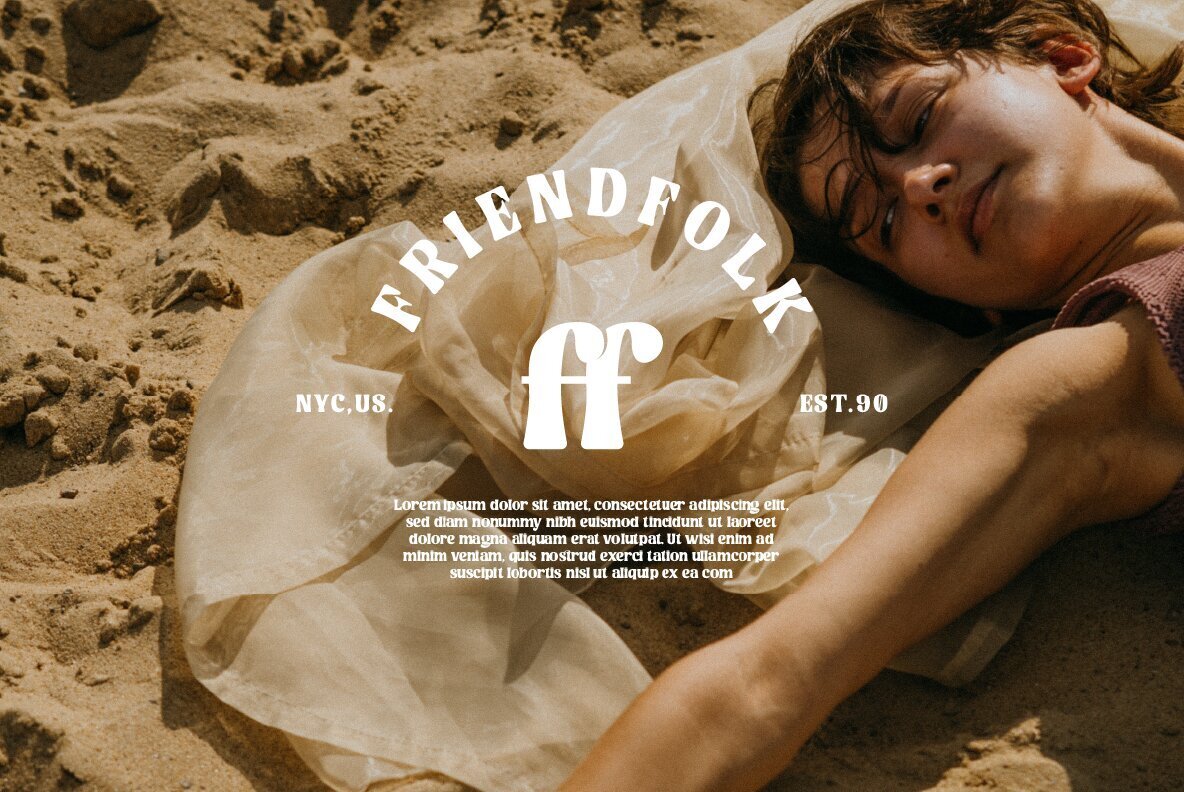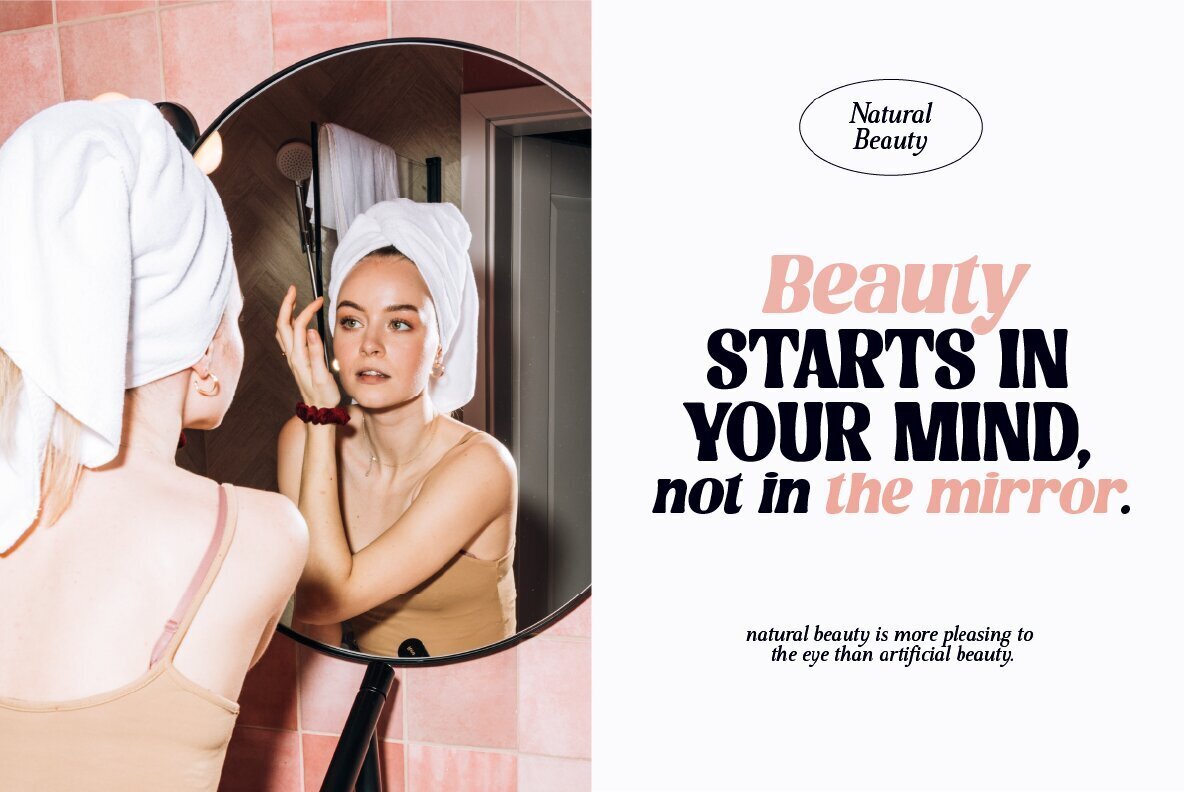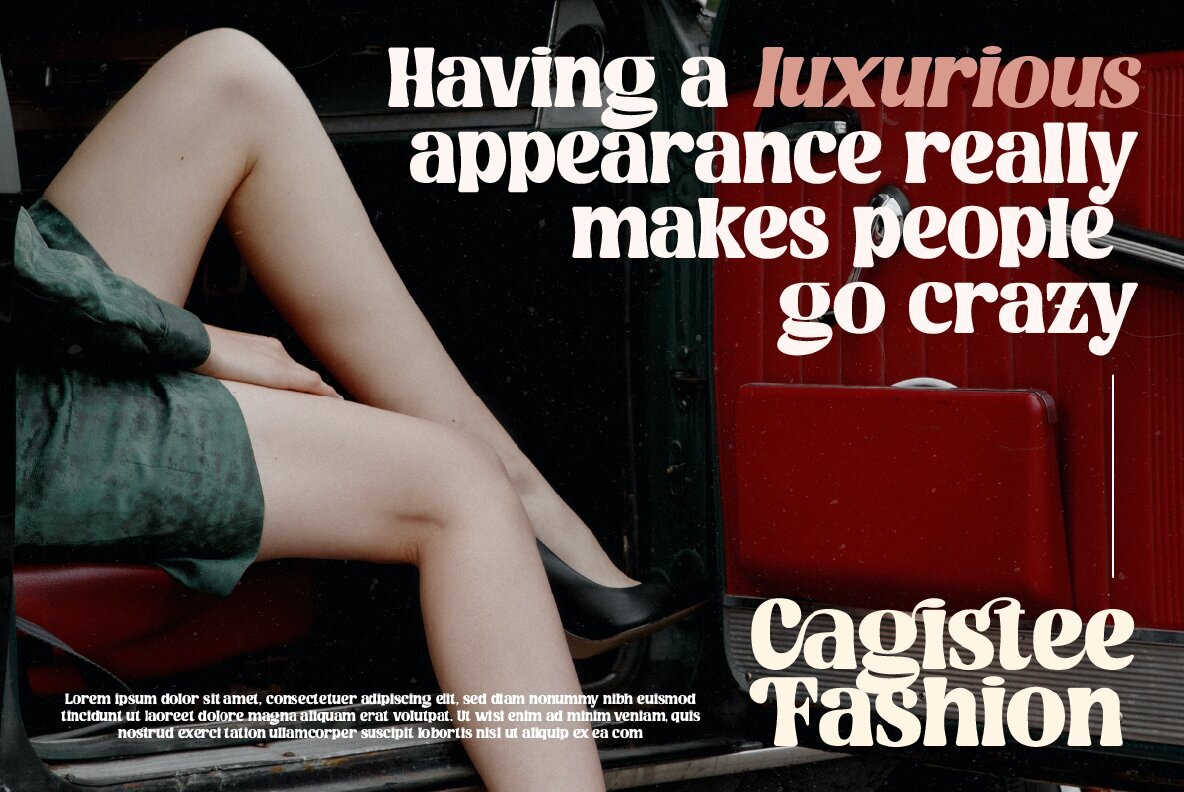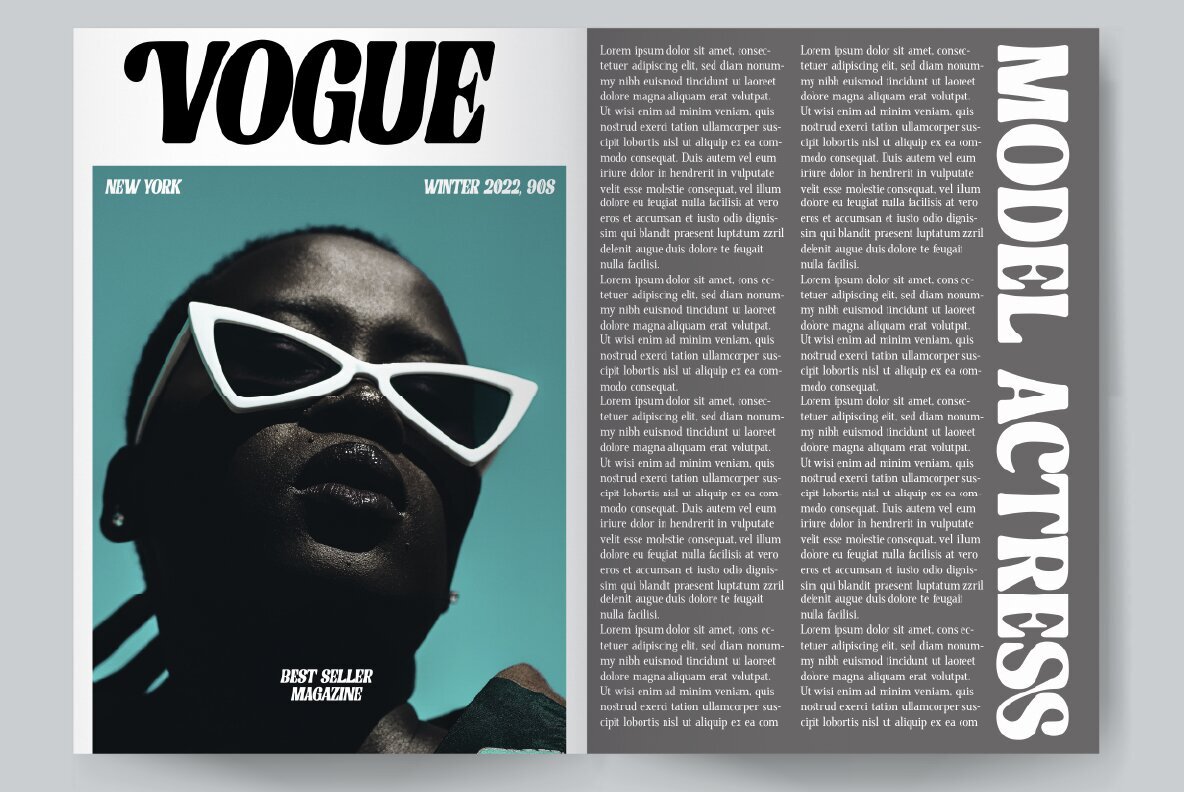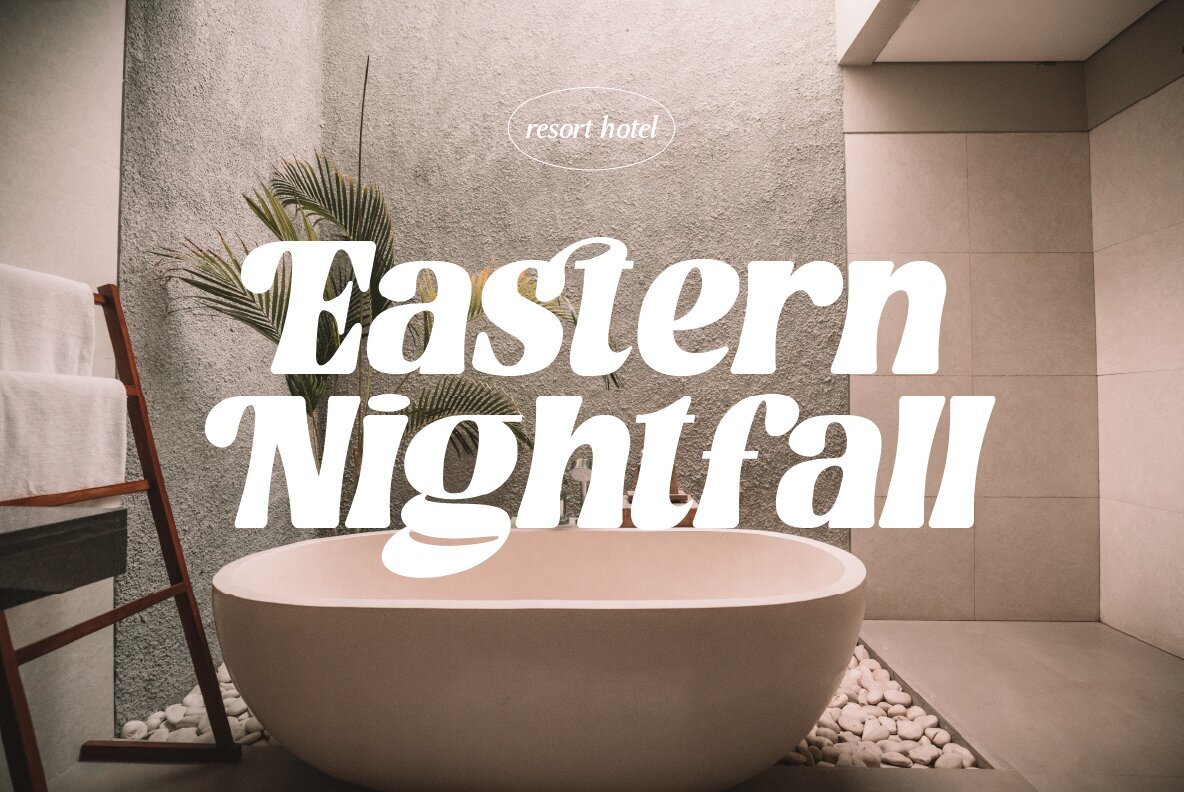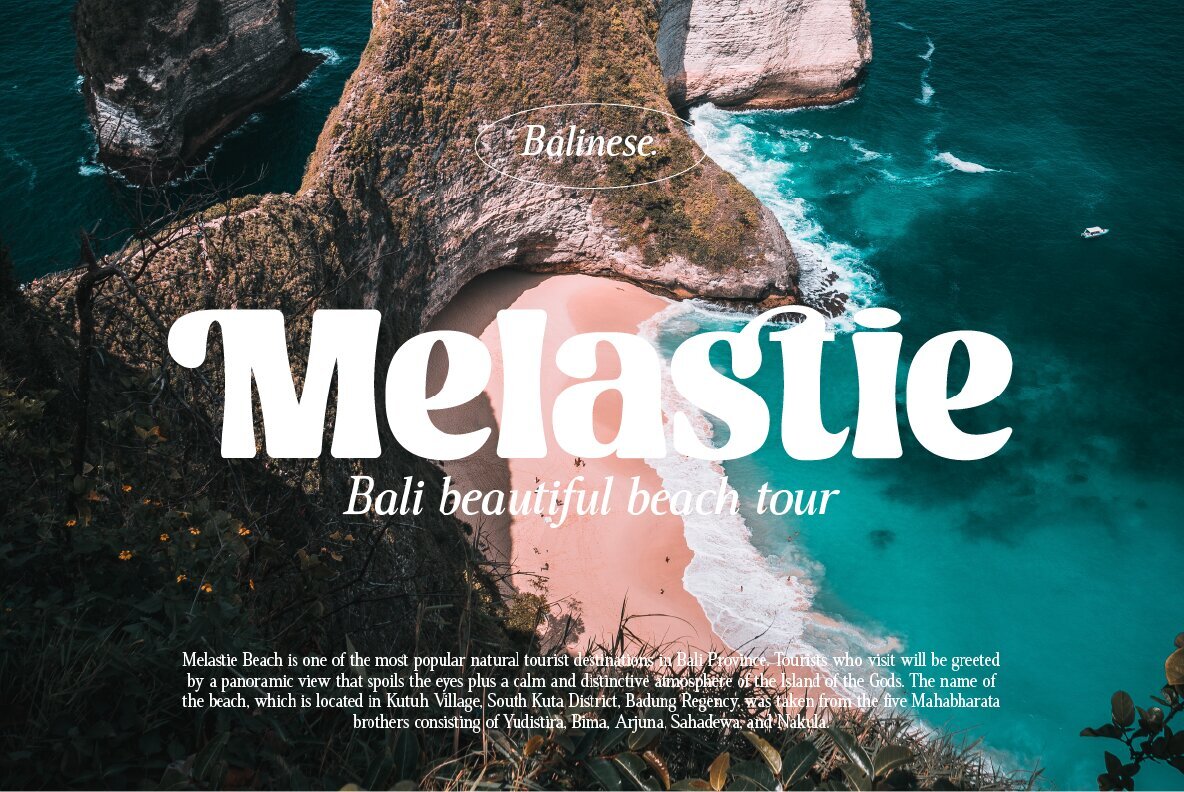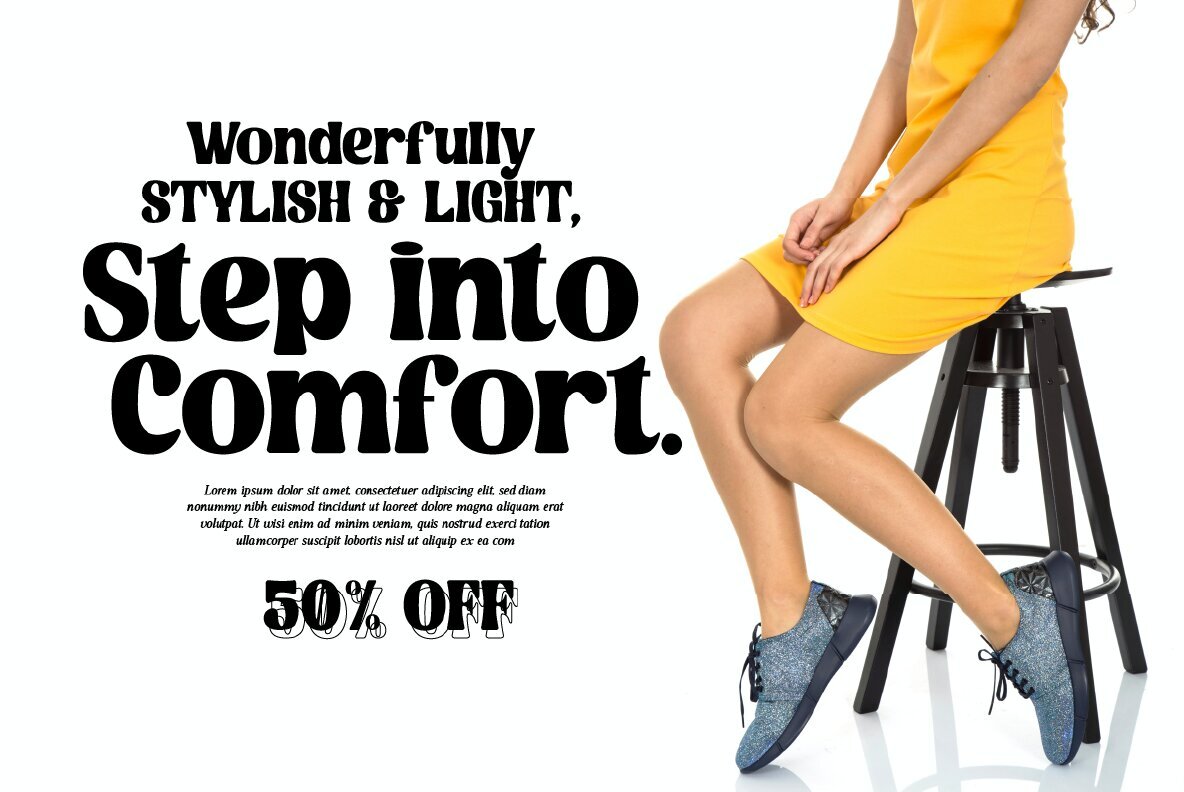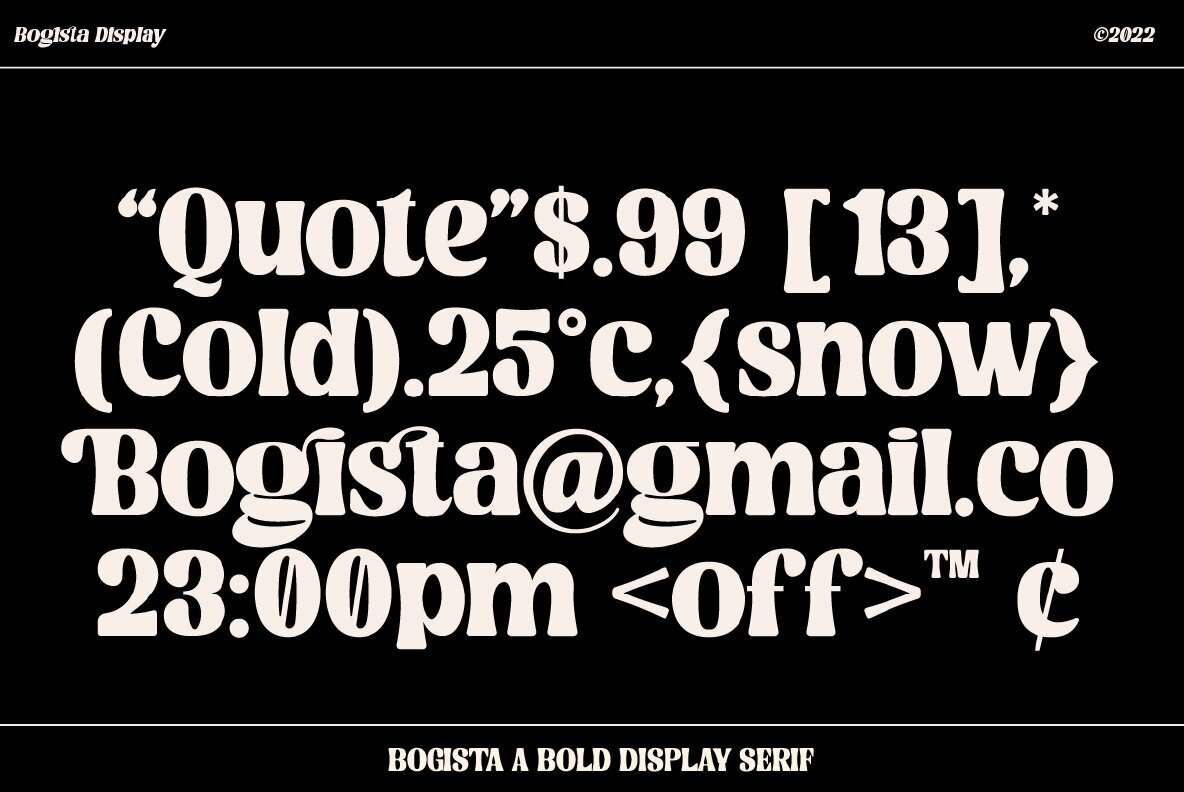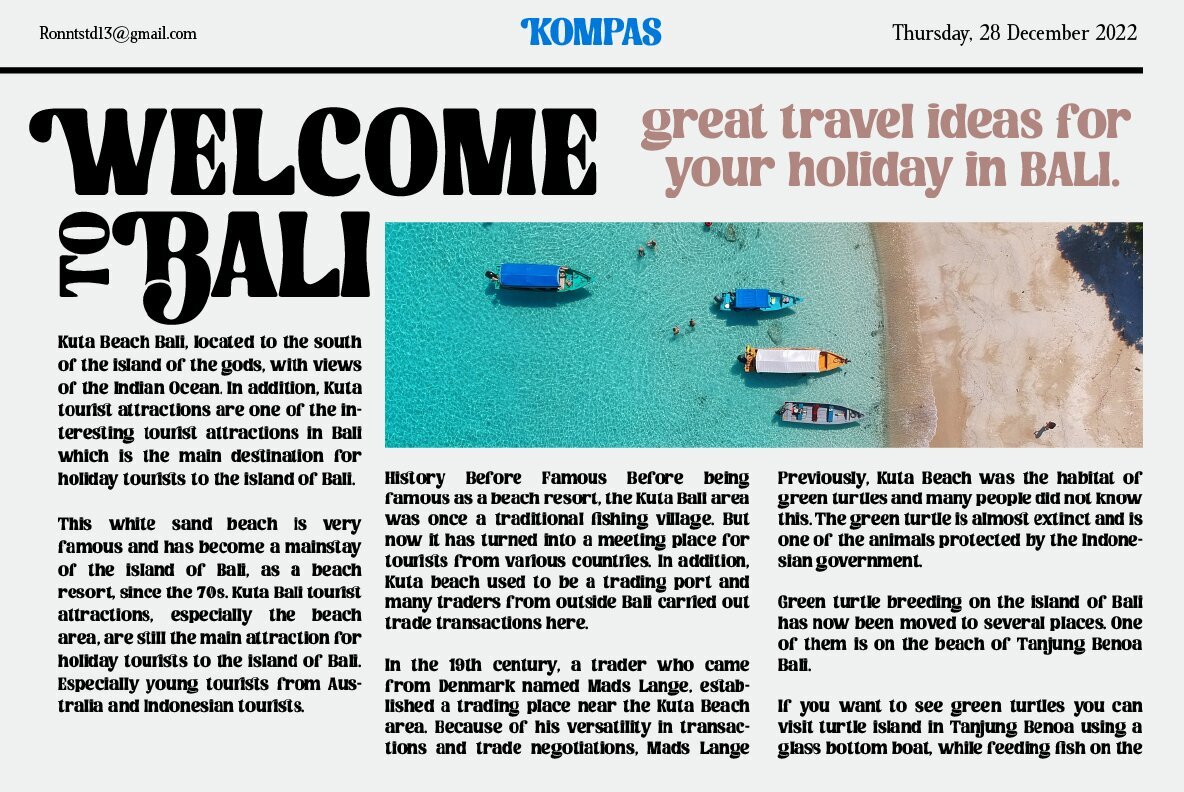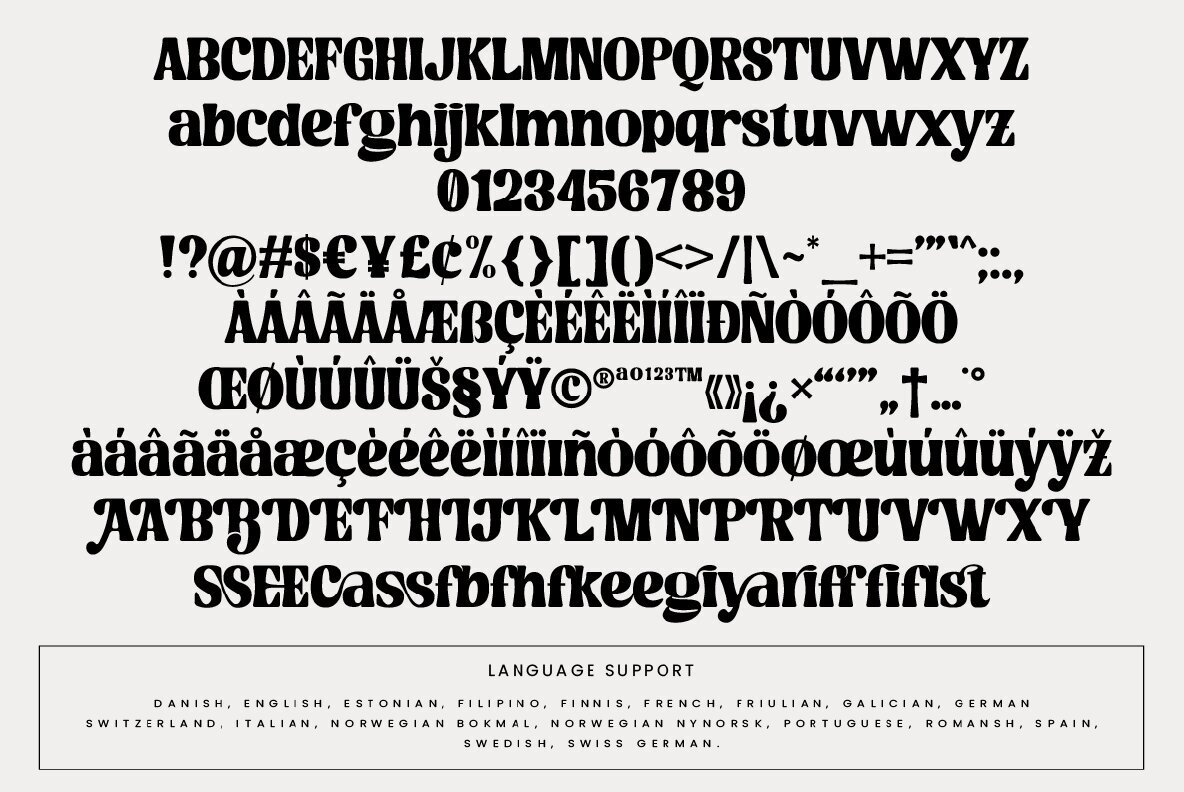
Bogista Font
Bogista offers a bold and elegant serif display, perfect for those seeking a distinct touch in their design projects. This font boasts professional craftsmanship, effortlessly complementing a range of creative works. Its striking design promises to enhance any project with sophistication and flair.Bogista: Bold Elegance in Serif Styling